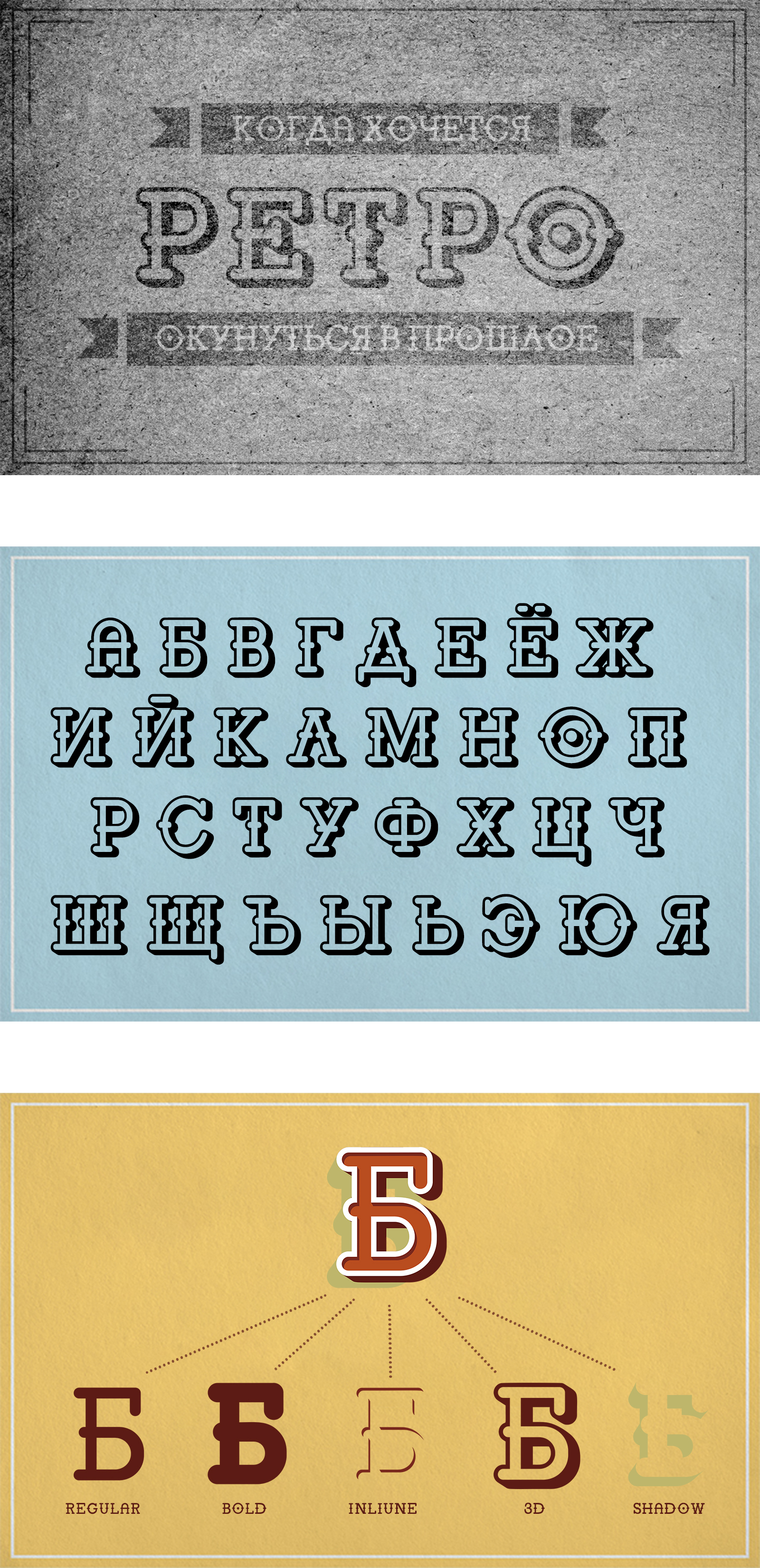
In his time, he developed a Cyrillic for the Retro Pop family.
Retro Pop is a family of multi-layer fonts for vintage and retro design.
The font consists of 5 drawings: Regular, Bold, Inline, 3D and Shadow.
This allows you to use a lot of different combinations.